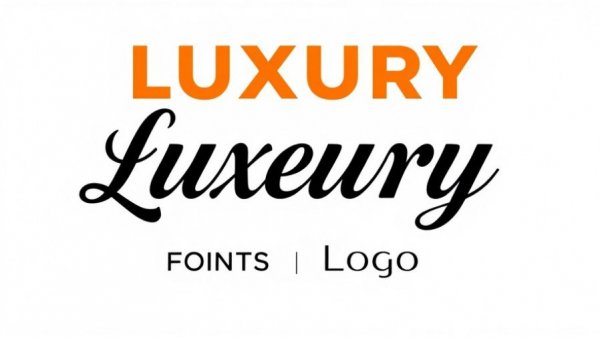
Elevate Your Brand with 30+ Luxury Fonts for Logos
Luxury fonts for logos advertisement with bold typography.
Understanding Luxury Fonts and Their Importance
Choosing the right luxury fonts for logos is crucial in establishing a memorable brand identity. Luxury fonts are characterized by their clean lines, elegance, and balance, essential for conveying a brand's personality. Whether for fashion, jewelry, or premium services, the selected typography must resonate with the target audience.
Exploring 30+ High-Quality Fonts for Your Logo
In the quest for the perfect logo, a collection of over 30 luxury fonts awaits designers. This selection includes serif, sans serif, and script styles to fit any branding need. Each font is crafted to elevate brand visuals, ensuring that whether on a website, packaging, or social media, the logo reflects sophistication.
The Role of Readability in Luxury Typography
When it comes to branding, typography isn't just about aesthetics—clarity is key. A high-end font should be legible and distinct, avoiding the confusion that can arise from overly complex designs. Mixing fonts can create a chaotic logo; rather, utilizing one or two styles ensures a clean, polished look. As designers, testing logos in various sizes and colors is essential for confirming that the font carries the brand identity across mediums.
Key Font Recommendations for Professional Logos
Here are several luxury fonts to consider for your brand:
• Eminence: A modern display sans font, Eminence stands out in high-end fashion and editorial designs. Its ligatures and alternate styles provide flexibility for unique branding.
• Moonari: Clean and minimal, Moonari is ideal for lifestyle brands, making it perfect for logos and social media posts.
• Sanela: This versatile serif family offers a range of weights, suitable for magazines and premium branding, beautifully contrasting strokes for a striking appearance.
• Worid: With soft curves, Worid embodies sophistication, perfect for fashion logos and packaging.
• Elvare: A high-contrast serif font, Elvare's sharp lines make it excellent for luxury branding and editorial layouts.
Exploring Usage and Applications for Luxury Fonts
Selecting the perfect font for your logo involves considering how and where it will be used. A luxurious font should maintain its character in various sizes and formats, whether on business cards or overhead banners. Experimentation with different applications can lead to discovering the true capabilities of each font.
Creating a Cohesive Brand Identity with Typography
Typography plays a pivotal role in your brand's storytelling. The tone set by your fonts can evoke emotions and create connections with audiences. From wedding invitations to high-end packaging, the right font can transform perceptions and foster brand loyalty.
Conclusion: Elevate Your Brand with Luxurious Typography